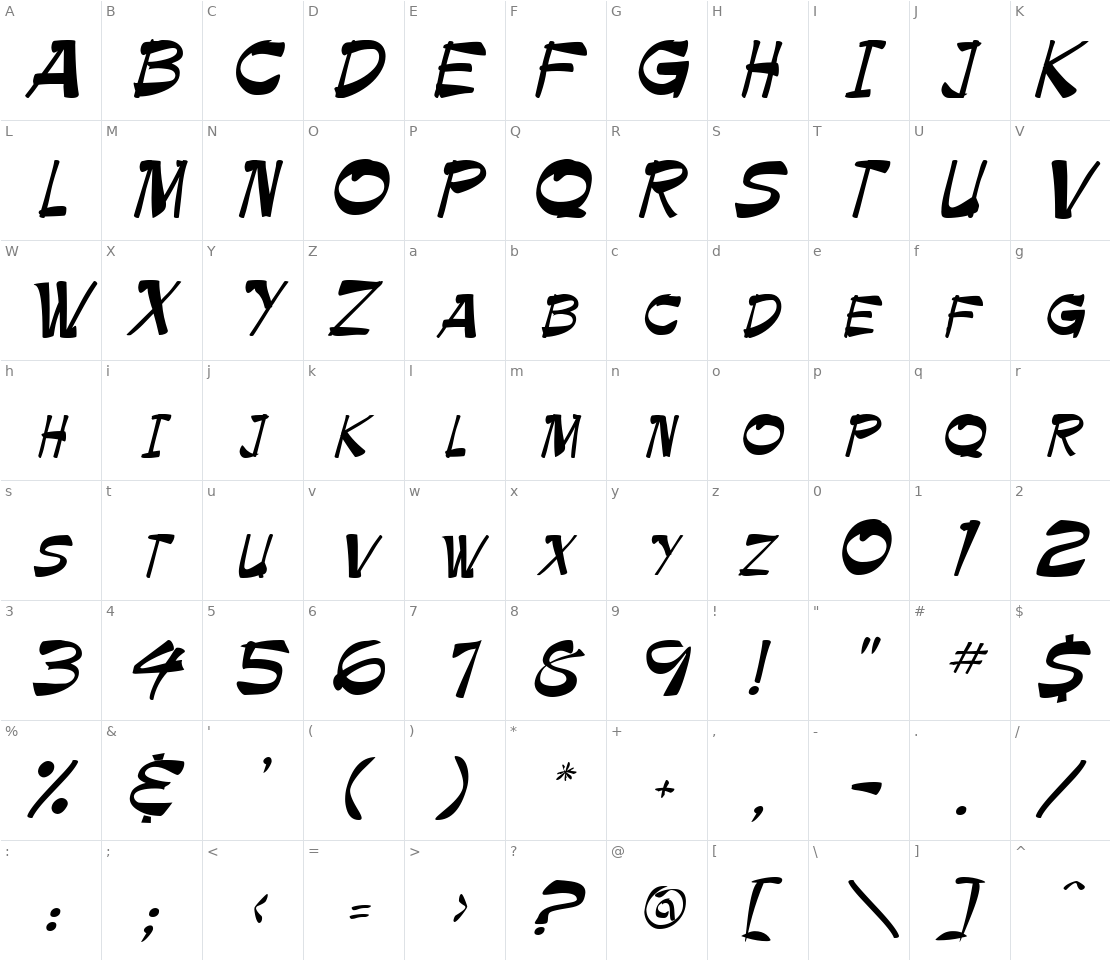
Ballot
Ballot is a bold, slanted handwritten face with the thick, confident strokes of a wide-tipped marker laid down in a hurry. The brush-like letterforms carry real energy and looseness, leaning forward with an informal urgency that works well for headlines, posters, and packaging where you want something that feels spontaneous and human rather than polished.